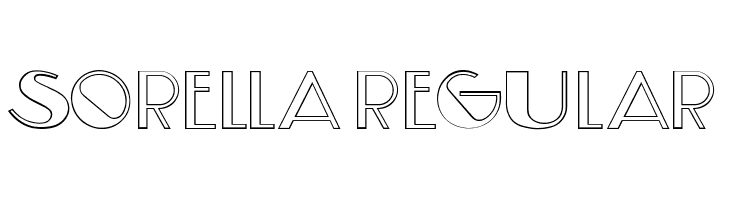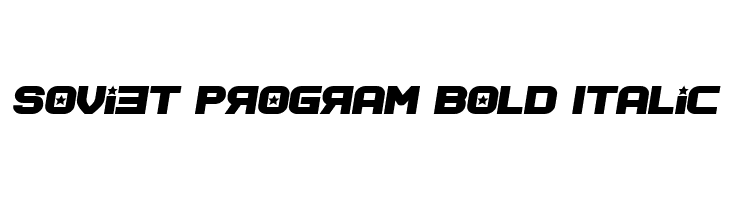
• Soppy Regular
A bold, decorative font with a textured pattern overlay, perfect for impactful display use.
• Sorella College Regular
A bold, geometric font with art deco influences and high contrast strokes.
• Sorella Regular
A modern, geometric font with clean lines and a minimalist aesthetic.
• South Winds Regular
A bold, outlined font with a modern, three-dimensional appearance.
• Southern Italic
A bold, italic, and futuristic font with a geometric design.
• Southern Regular
A futuristic, geometric font with bold, angular letterforms.
• Soviet Program Bold
( Vladimir Nikolic - www.coroflot.com/vladimirnikolic )
A bold, geometric font with an industrial and futuristic style.
• Soviet Program Bold Italic
( Vladimir Nikolic - www.coroflot.com/vladimirnikolic )
A bold, italic typeface with angular, futuristic letterforms and decorative elements.
• Soviet Program Italic
( Vladimir Nikolic - www.coroflot.com/vladimirnikolic )
A bold, italicized geometric font with a modern and dynamic style.
• Soviet Program Regular
( Vladimir Nikolic - www.coroflot.com/vladimirnikolic )
A bold, geometric font with a futuristic and industrial style.